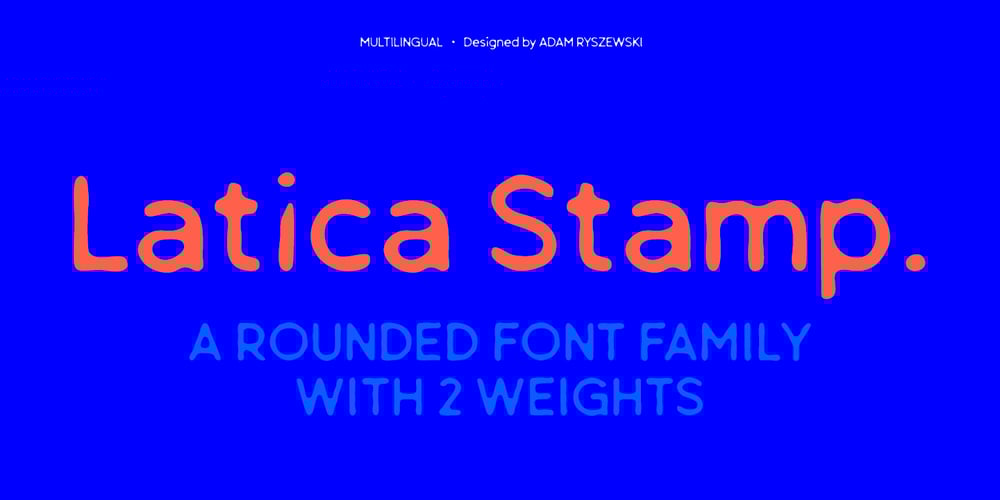
Latica Stamp Font Family was designed by Adam Ryszewski and published by Vertigo. Latica Stamp contains 2 styles and family package options. Latica Stamp is a rounded, display font, imitating stamped writing, with deformed lines. Body text looks clear and legible, but the best use is where there is a need to escape from the clichéd, classic, sharp font. It works well for bold projects, posters, billboards, press advertisements, websites, packaging. It provides multilingual support.